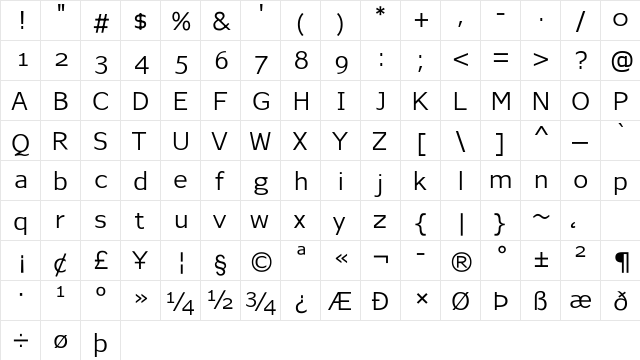
Legendum Regular
| Foundry | Rogier van Dalen |
| Designer | Rogier van Dalen |
Design Context for Legendum Typeface
Legendum is a composed and adaptable typeface that performs quietly and consistently across a wide range of design contexts.